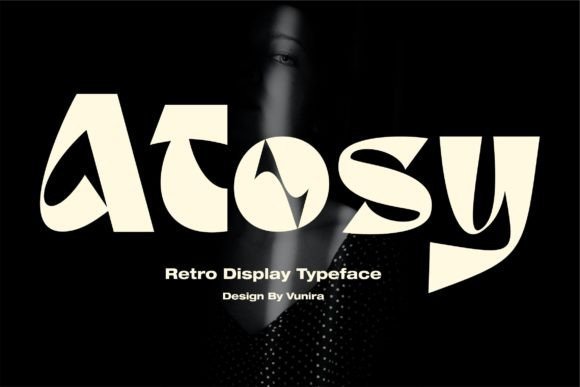
Unlock the Whimsy of Your Designs with Atosy Font
Remember that moment when you’re working on a project and you can’t quite put your finger on what’s missing? The design feels flat, the text seems dull, and you’re desperate for something to shake things up. That’s where Atosy Font comes in – a wavy, whimsical display font that’s sure to add a touch of magic to your creations.
Atosy Font is a stylish and trendy addition to any design, perfect for making a statement or adding a playful twist to your work. With its unique shape and PUA encoding, you’ll have access to a wide range of glyphs and swashes to customize your designs. Whether you’re a seasoned designer or just starting out, Atosy Font is a valuable tool in your creative arsenal.
Atosy Font Key Features
- Font Family: Atosy Font is a unique, high-quality font family that includes various styles and weights.
- Unique Characteristics: Atosy Font features a distinctive, modern design with intricate details and subtle texture, making it perfect for creative projects.
Atosy Font Review
At first glance, I was drawn to the unique aesthetic of Atosy Font. It has a ✨ quirky charm that’s hard to ignore. The font’s rounded edges and flared terminals give it a playful, handwritten feel that’s perfect for creative projects.
One of the strengths of Atosy Font is its versatility. It works well in a variety of contexts, from digital signage to editorial design. The font is also highly legible, making it suitable for both body text and display headings.
- ⚠️ Font size limitations: Atosy Font can become difficult to read at very small sizes, making it less suitable for fine print or high-density text.
- ⚠️ Lack of weight options: Atosy Font is only available in a single weight, which can limit its expressiveness in certain design contexts.
Overall, I think Atosy Font is a solid choice for designers looking for a unique, creative font. While it may have some limitations, its versatility and legibility make it a great addition to any design toolbox.
The Atosy font is a versatile and elegant font that can be used for a variety of design projects, including:
- Editorial and magazine designs